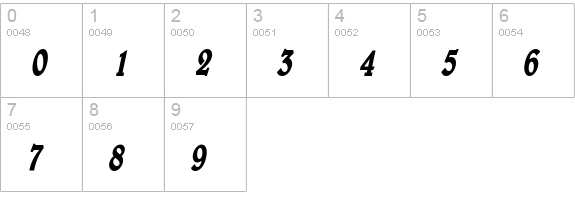
Blew Condensed Bold Italic is a strong, high-contrast, condensed-width, italic variant in the Blew typeface family \xE2\x80\x94 well suited to headlines, attention-grabbing titles, and strong calls-to-action.
Introducing Blew Condensed Bold Italic font - a striking and versatile typeface that commands attention with its bold and elegant design. This unique font features a condensed style that is perfect for adding a touch of modern sophistication to any project. The bold and italicized characters exude confidence and style, making it ideal for headlines, branding, logos, and more. What's even better is that Blew Condensed Bold Italic font is available for free download at FontsMarket.com. This means you can easily access and use this stunning font in your projects without any cost. Don't miss out on the opportunity to enhance your designs with this sleek and impactful typeface. Download Blew Condensed Bold Italic font today and elevate your creative work to new heights!